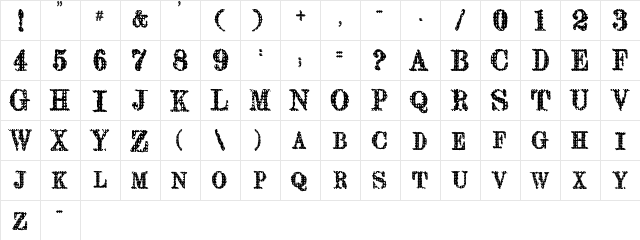
Reality sucks Bold
Design Context for Reality sucks Typeface
Reality sucks takes a measured approach to typography — its balanced proportions and neutral character make it a reliable workhorse for both digital and print work. The heavy weight commands attention and anchors typographic hierarchies.